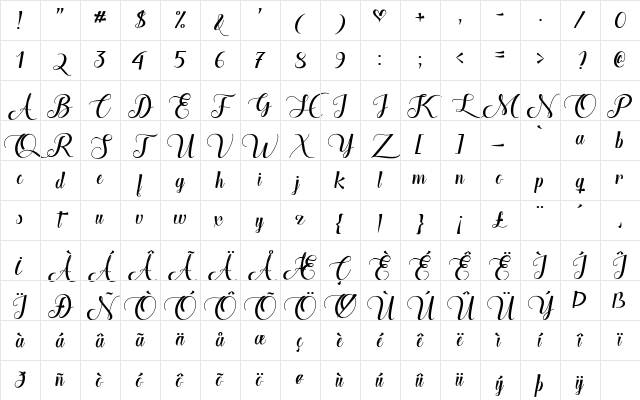
The Heart of Everything Demo Regular
Foundry: Misti's Fonts
Designer: Misti's Fonts
Design Context for The Heart of Everything Demo
The Heart of Everything Demo is a composed and adaptable typeface that performs quietly and consistently across a wide range of design contexts. Its slender proportions lend an understated elegance to any composition.